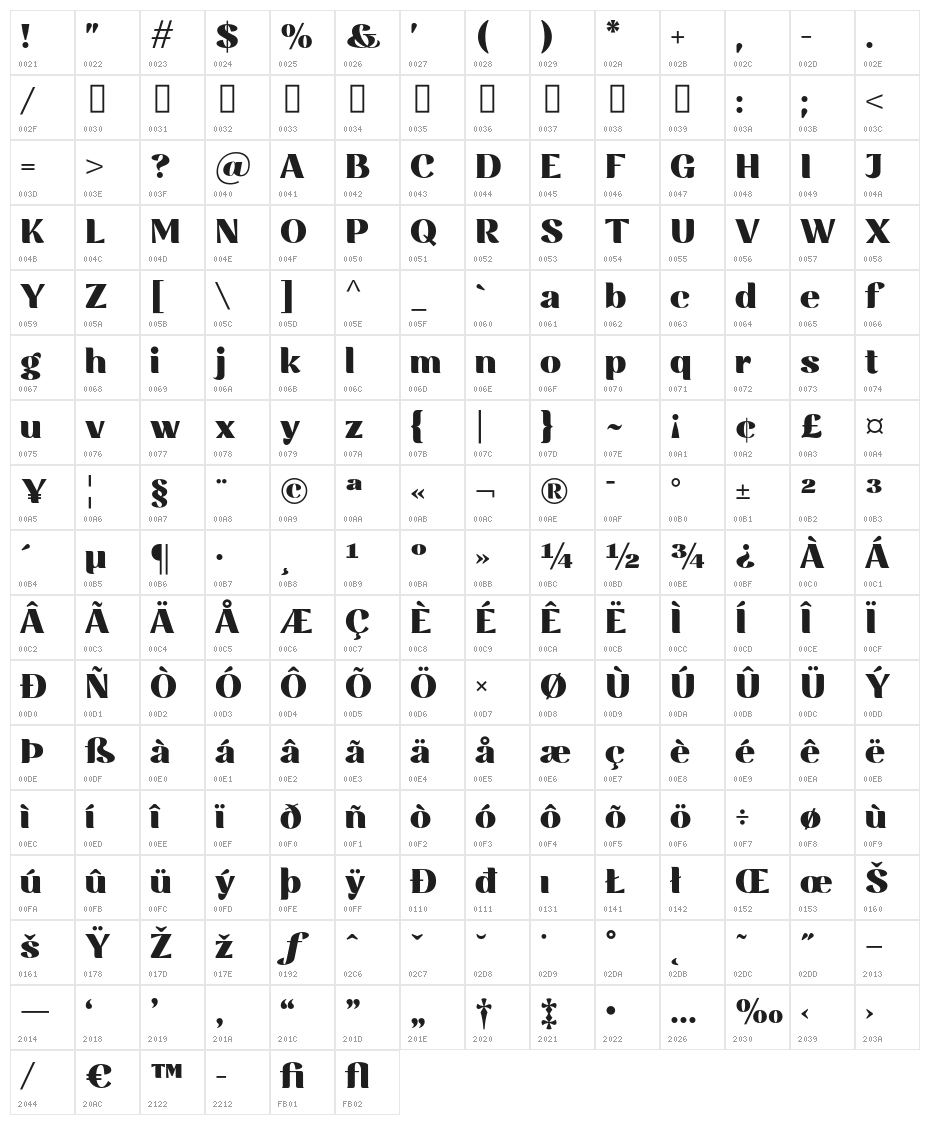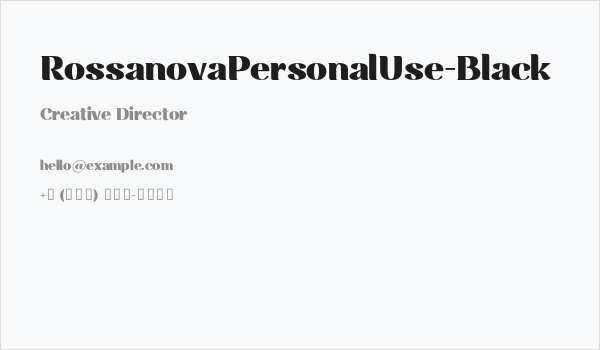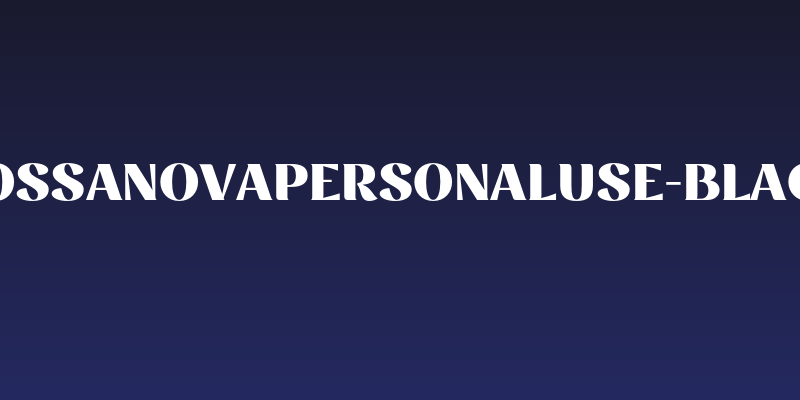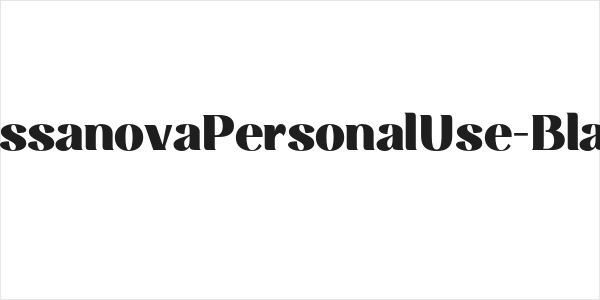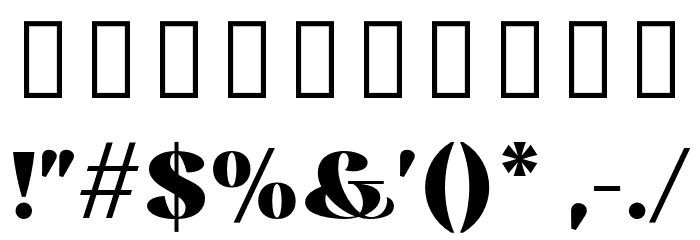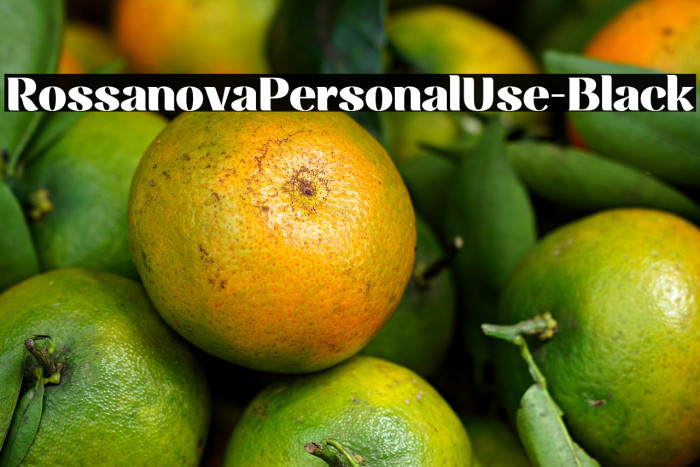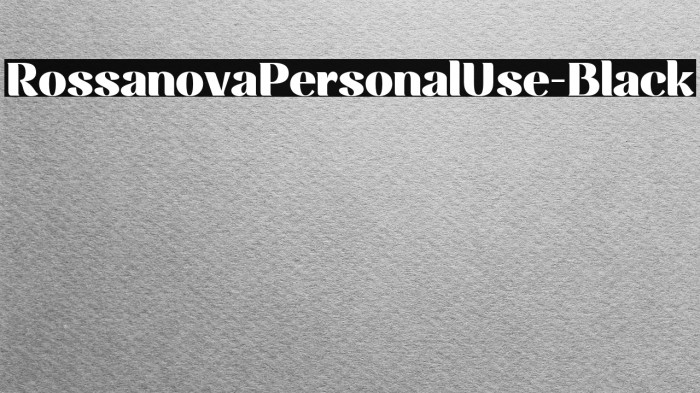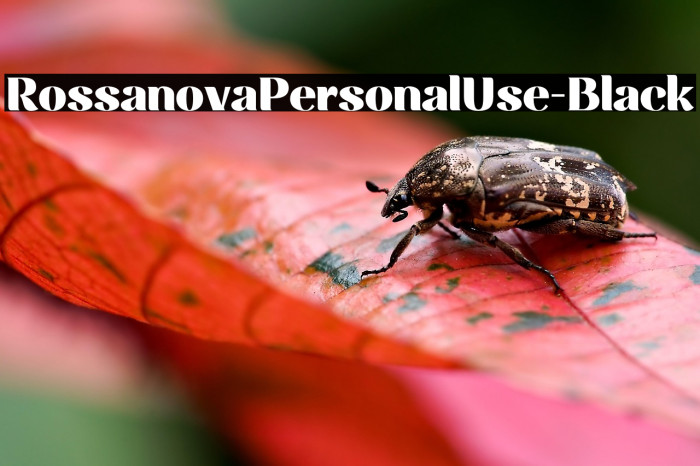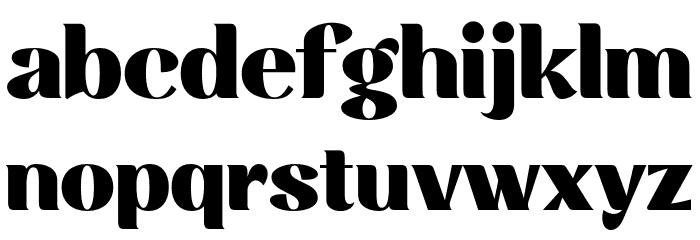
RossanovaPersonalUse-Black Font
RossanovaPersonalUse-Black Description
This font exhibits a bold and striking appearance, characterized by thick, heavy strokes and a strong presence. The uppercase letters are particularly robust, with a slight curvature that adds a touch of elegance to their otherwise solid form. The lowercase letters maintain this boldness, ensuring consistency across the typeface. The numerals and special characters follow suit, providing a cohesive look throughout. The font's design is modern yet retains a classic feel, making it versatile for various applications.
| Proposed Projects | Ideal for branding, headlines, posters, and any design requiring a strong visual impact. |